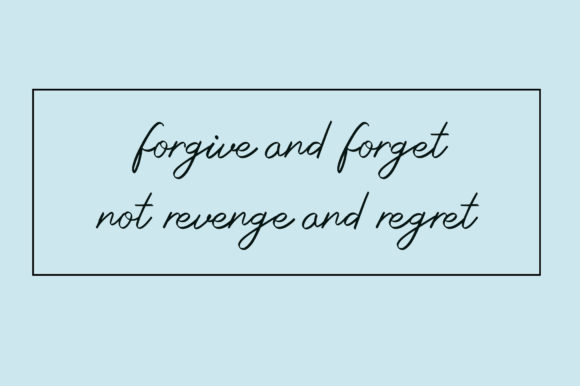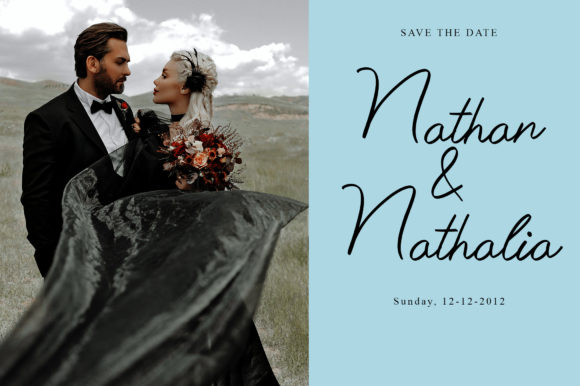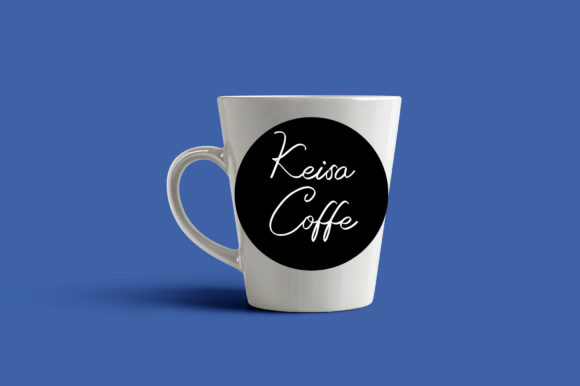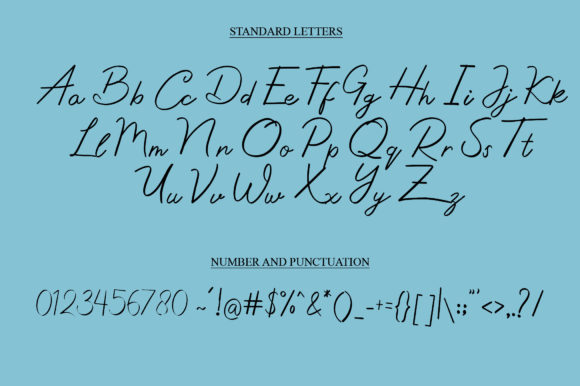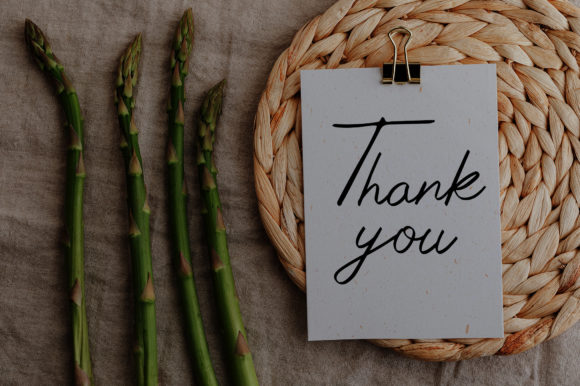
Introducing Birthday Font: The Perfect Choice for Elegant Designs
Are you looking for a font that exudes class, elegance, and modernity? Look no further than Birthday Font! This delicate and well-balanced handwritten font is perfect for designers and crafters who want to add a touch of sophistication to their designs. In this article, we’ll dive into the features and benefits of Birthday Font, and explore how you can use it to elevate your designs.
What is Birthday Font?
Birthday Font is a beautiful handwritten font that boasts a classy, elegant, and modern look. Its delicate strokes and balanced design make it perfect for a wide range of applications, from logos and branding to invitations, stationery, wedding designs, and social media posts. Whether you’re a designer, crafter, or DIY enthusiast, Birthday Font is a versatile and stylish choice that can help you create stunning designs.
- Delicate and well-balanced design: Birthday Font features a beautiful, handwritten design that is both delicate and well-balanced. Its elegant strokes and classic look make it perfect for designs that require a touch of sophistication.
- Classy, elegant, and modern look: This font boasts a classy, elegant, and modern look that is sure to impress. Its unique design makes it stand out from other fonts, and its versatility ensures that it can be used in a wide range of applications.
- Perfect for logos, branding, and more: Birthday Font is perfect for logos, branding, invitations, stationery, wedding designs, social media posts, and much more. Its versatility and stylish design make it an excellent choice for designers and crafters who want to create stunning designs.
Benefits of Using Birthday Font
So why choose Birthday Font for your designs? Here are just a few benefits of using this beautiful font:
- Adds elegance and sophistication to your designs: Birthday Font’s delicate and well-balanced design adds a touch of elegance and sophistication to any design. Whether you’re creating a logo, invitation, or social media post, this font is sure to impress.
- Versatile and flexible: This font is perfect for a wide range of applications, from formal events to casual designs. Its versatility ensures that you can use it to create a variety of designs, from logos and branding to invitations and stationery.
- Easy to read and understand: Despite its elegant design, Birthday Font is easy to read and understand. This makes it perfect for designs that require a clear and concise message, such as logos, headings, and titles.
How to Use Birthday Font in Your Designs
So how can you use Birthday Font in your designs? Here are a few ideas to get you started:
- Logos and branding: Use Birthday Font to create stunning logos and branding materials that exude elegance and sophistication.
- Invitations and stationery: This font is perfect for invitations, stationery, and other paper designs. Its delicate and well-balanced design makes it ideal for formal events and special occasions.
- Wedding designs: Birthday Font is a popular choice for wedding designs, including wedding invitations, programs, and decorations.
- Social media posts: Use this font to create stunning social media posts that stand out from the crowd. Its elegant design and versatility make it perfect for a wide range of social media applications.
Tips and Tricks for Working with Birthday Font
Here are a few tips and tricks to help you get the most out of Birthday Font:
- Experiment with different sizes and colors: Don’t be afraid to experiment with different sizes and colors to find the perfect combination for your design.
- Pair with other fonts: Birthday Font pairs well with other fonts, so don’t be afraid to experiment with different font combinations to create a unique look.
- Use it sparingly: While Birthday Font is a beautiful font, it’s best to use it sparingly to avoid overwhelming your design. Use it for headings, titles, and other key elements to add a touch of elegance and sophistication.
In conclusion, Birthday Font is a beautiful and versatile font that is perfect for designers and crafters who want to add a touch of elegance and sophistication to their designs. Its delicate and well-balanced design, classy look, and versatility make it an excellent choice for a wide range of applications. Whether you’re creating logos, branding materials, invitations, stationery, wedding designs, or social media posts, Birthday Font is sure to impress.